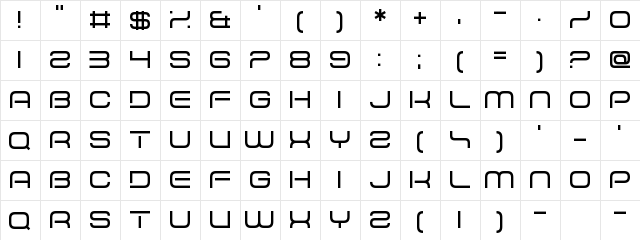
Development Hell Regular
Design Context for Development Hell Typeface
Development Hell offers clean, dependable letterforms without strong stylistic allegiance, making it a practical choice for designers who need flexibility.